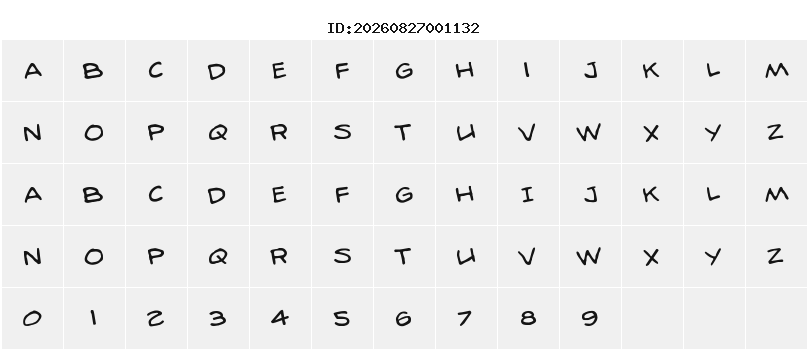
• Font Name: 98 Bottles of Beer Rotated
About 98 Bottles of Beer Rotated.ttf
98 Bottles of Beer Rotated.ttf is a modern, elegant sans-serif font designed for ultimate readability and visual harmony. Perfect for branding, headlines, web design, and print materials.